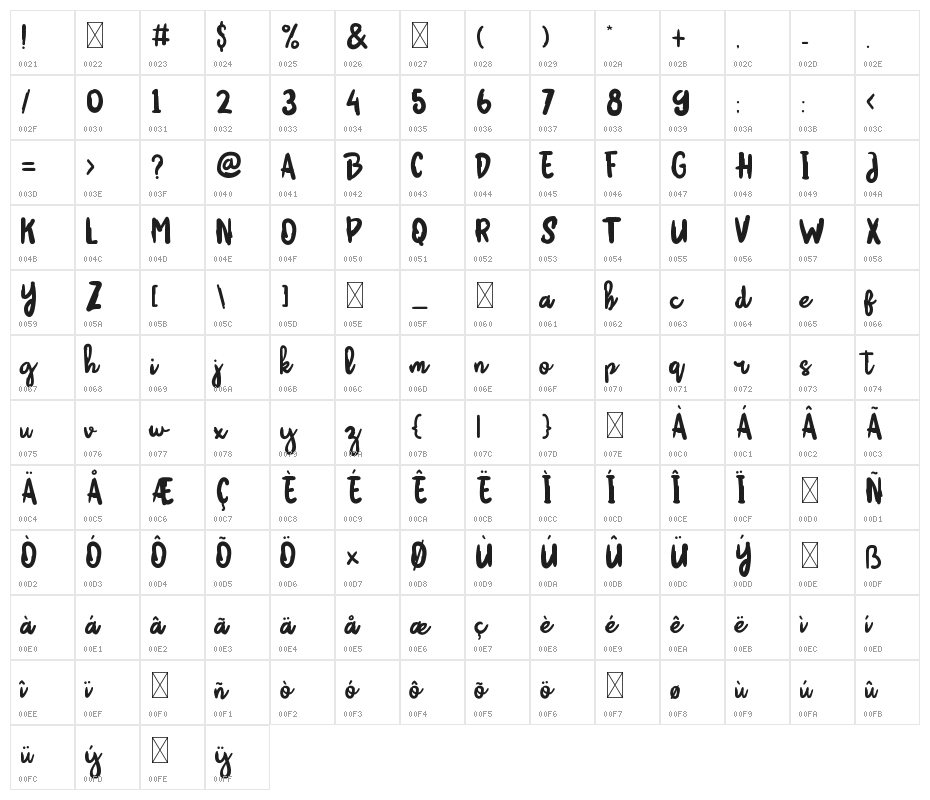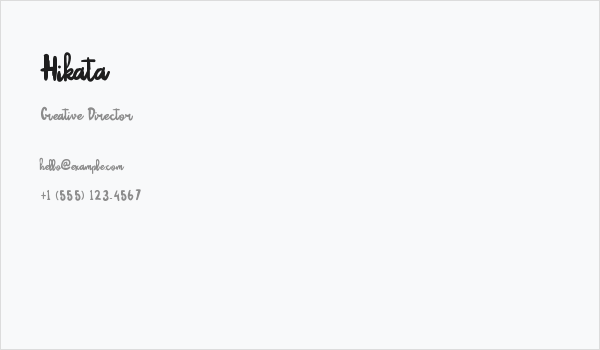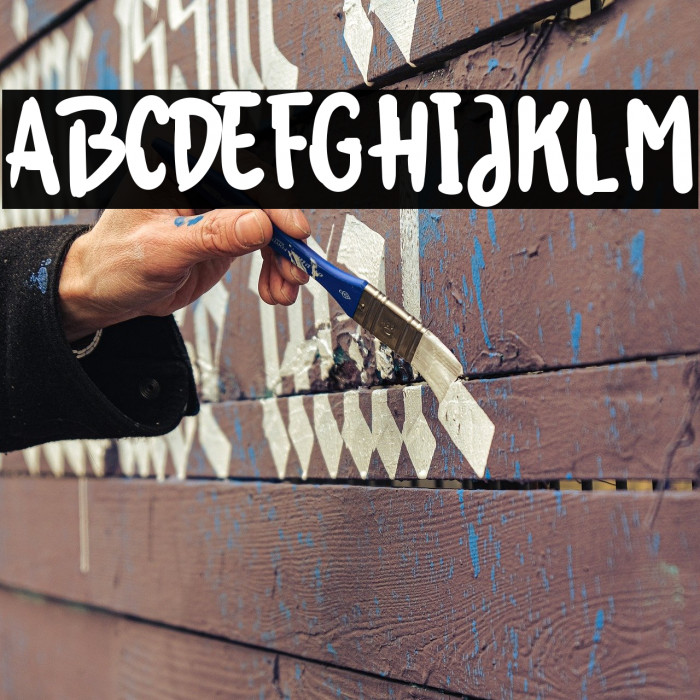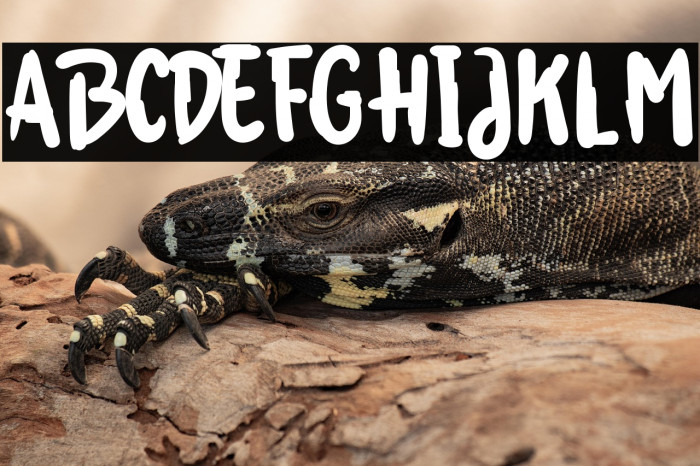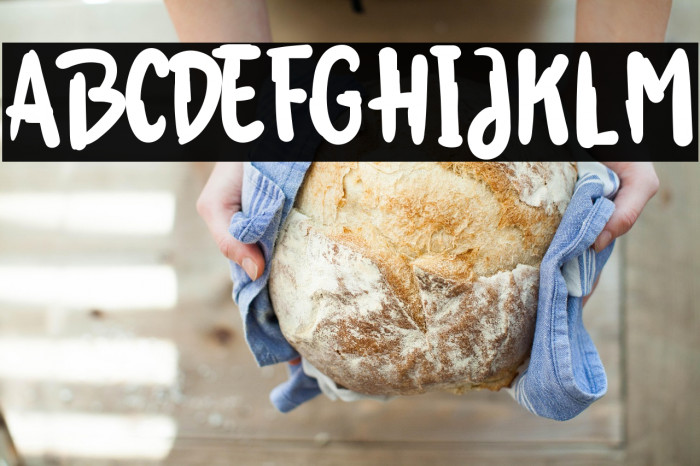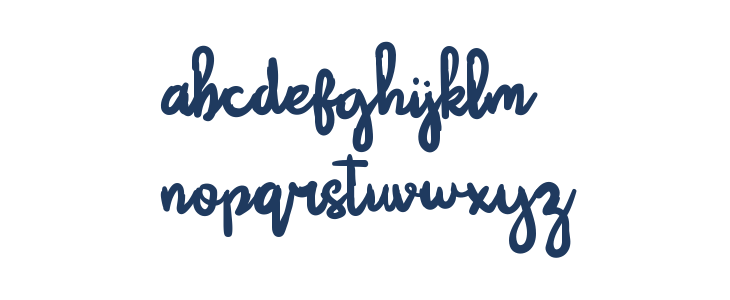
Hikata Font
Hikata Description
This font features a bold and playful handwritten style with a casual and friendly appearance. The uppercase letters are robust and slightly irregular, giving a dynamic and energetic feel. The lowercase letters maintain a consistent flow with a slight slant, enhancing the handwritten aesthetic. Numbers are bold and rounded, matching the overall style. Special characters are creatively designed, adding to the font's unique personality. The strokes are thick and consistent, providing a strong visual impact.
| Overall Style | Playful, Casual |
| Proposed Projects | Ideal for children's books, playful branding, greeting cards, and creative posters. |